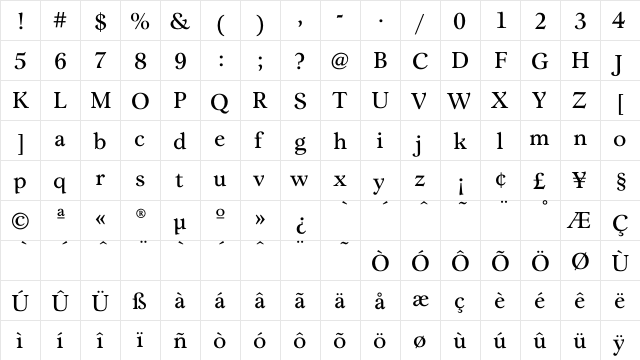
LombaMedium Regular
Design Context for LombaMedium Typeface
LombaMedium is a composed and adaptable typeface that performs quietly and consistently across a wide range of design contexts.